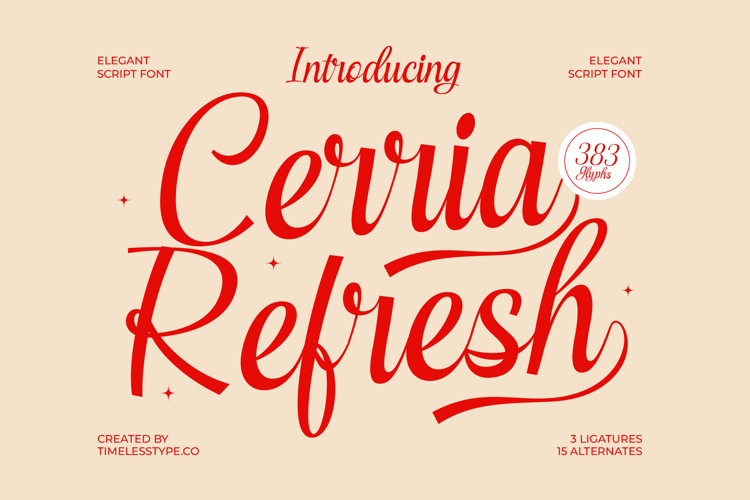
Cerria Refresh - Elegant Script Font
Unleash unparalleled elegance with Font Cerria Refresh - Elegant Script Font Script, a truly captivating script typeface designed to leave a lasting impression. Its graceful curves and fluid connections evoke a sense of refined artistry, blending contemporary appeal with a timeless, handcrafted charm. This unique script effortlessly commands attention, making every word a focal point of beauty and distinction, perfect for projects seeking a touch of warmth and sophistication.
Experience boundless creative freedom through exceptional design and global adaptability. Font Cerria Refresh - Elegant Script Font Script offers a harmonious balance of vibrant energy and sophisticated fluidity, ideal for conveying both playfulness and professionalism. With its extensive multilingual support, Font Cerria Refresh - Elegant Script Font Script adapts seamlessly across global markets, making it incredibly versatile for international projects and ensuring your message resonates universally.
Elevate your brand narrative with a typeface specifically crafted for impact and allure. Font Cerria Refresh - Elegant Script Font Script is the quintessential choice for luxury branding, bespoke invitations, upscale packaging, and captivating editorial headlines. It brings a custom-crafted feel to product labels, cafe menus, wedding stationery, and any project demanding a touch of flair and high-end aesthetic, instantly adding value and appeal.
Invest in a design asset that promises to transform your visual communication. With its generous set of 383 glyphs, including ligatures and alternates, Font Cerria Refresh - Elegant Script Font Script provides ample opportunities for customization and unique textual expressions. Choose this exceptional script to craft truly unforgettable impressions and imbue your designs with an unmistakable sense of charm and professional polish.